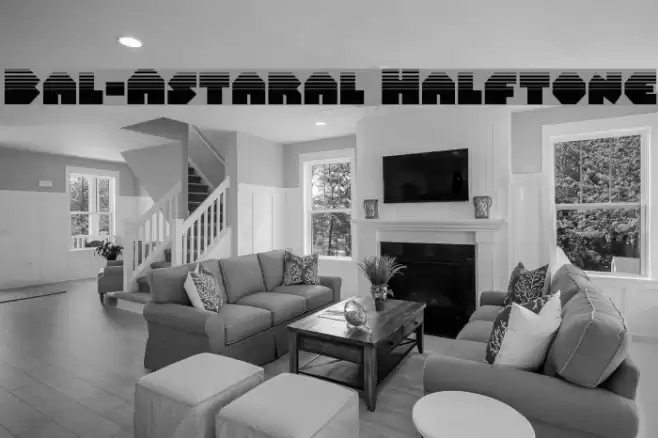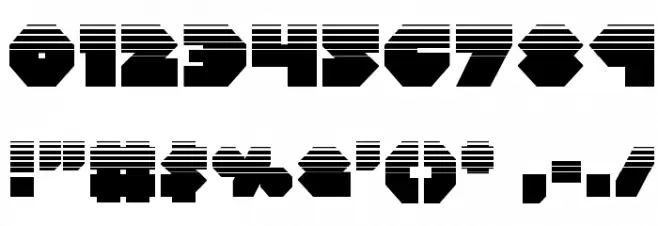
Bal-Astaral Halftone Font
Bal-Astaral Halftone Description
This font features a bold and striking design with a halftone effect that creates a sense of movement and depth. The characters are constructed with horizontal lines that give a layered appearance, making it visually dynamic and engaging. The uppercase and lowercase letters maintain a consistent style, with each character exhibiting a geometric form that is both modern and industrial. The numbers and special characters follow the same design principles, ensuring a cohesive look across all glyphs. This font's unique style makes it ideal for projects that require a bold statement or a futuristic aesthetic.
A bold, geometric font with a halftone effect and modern industrial style from Futuristic fonts.
- Proposed Projects: Ideal for posters, album covers, branding projects, and any design work that requires a bold, futuristic look.
- Overall Style: Modern, Industrial